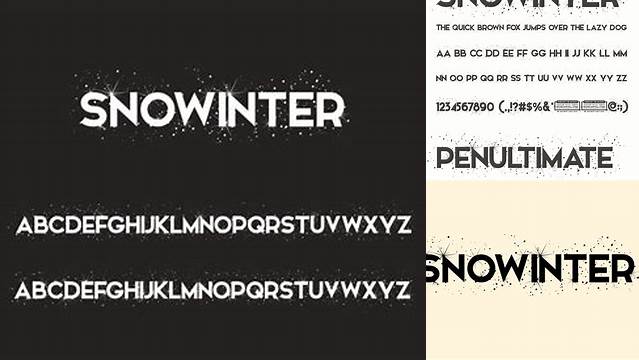
Snowinter Free Font: Personal Use Guide & Ideas
Hey guys! Ever stumbled upon a font that just clicks? That's Snowinter for me. It's this super cool, versatile font that I've been using for all sorts of personal projects. And the best part? It's free for personal use! Let's dive into everything Snowinter and why it might just become your new favorite font.
Snowinter Font: What Makes It Special?
So, what exactly is Snowinter? Well, it's a font family that generally features a modern and clean design. Think sleek lines, balanced curves, and a touch of personality. The specific styles can vary, but usually, you'll find it's easy on the eyes and super readable. Snowinter often comes in different weights (light, regular, bold, etc.), giving you flexibility in your designs. This versatility makes it a great choice for a wide array of personal projects. The charm of the Snowinter font lies in its ability to be both modern and approachable, making it a solid choice for diverse creative endeavors. The clean design and balanced letterforms of Snowinter make it exceptionally readable, which is essential for conveying information clearly and efficiently in various projects.
Why Choose Snowinter for Your Personal Projects?
Okay, so there are a ton of fonts out there. Why pick Snowinter? Simple: it's awesome! First off, being free for personal use is a HUGE win. You can experiment without worrying about licensing fees. Plus, its clean and modern look works well for so many things – from crafting personalized greeting cards to designing your own blog graphics. You'll find Snowinter really elevates the look of your designs without being too overpowering. In choosing Snowinter for your personal projects, you are opting for a typeface that brings a touch of sophistication without the hefty price tag. It’s a valuable asset for hobbyists and creative enthusiasts looking to enhance their work.
Unleashing Your Creativity: Project Ideas with Snowinter
Alright, let's get those creative juices flowing! Snowinter is seriously versatile. Think about using it for designing invitations for your next party, creating eye-catching social media graphics, or even sprucing up your resume. It also looks fantastic on personalized gifts like mugs or t-shirts. The possibilities are endless! Snowinter can also be incorporated into presentations to enhance readability and visual appeal. Snowinter offers a modern and clean aesthetic that can help make your content more engaging and professional-looking. Whether you are working on personal branding, event announcements, or creative crafts, Snowinter can elevate your designs and help you achieve the desired impact. The adaptability of Snowinter means it can be used in various contexts, ensuring your projects stand out with a consistent and stylish typeface.
Snowinter Font Variations: Exploring Different Styles
One of the cool things about Snowinter is that it often comes in different styles or weights. You might find a light version that's perfect for elegant headings, or a bold version that's great for making a statement. Experiment with the different variations to see which ones best suit your project. Sometimes, even subtle changes in font weight can make a big difference in the overall look and feel of your design. Snowinter also offers a range of weights, from light to bold, allowing you to choose the perfect style for your project. Each style maintains the clean and modern aesthetic of the font, ensuring a consistent and professional look across all your designs. Exploring these variations can significantly enhance the visual impact of your work. The availability of different styles in Snowinter allows for creative flexibility, making it an ideal choice for a wide range of design needs. Whether you need a delicate touch or a strong, bold statement, Snowinter has you covered.
Pairing Snowinter with Other Fonts: Achieving Harmonious Designs
Choosing the right font pairing can take your designs to the next level. Snowinter, with its clean aesthetic, plays well with a variety of other fonts. Consider pairing it with a classic serif font for a sophisticated look, or a playful script font for a touch of whimsy. The key is to find fonts that complement each other without clashing. Snowinter also pairs well with minimalist sans-serif fonts for a contemporary feel. By carefully selecting your font pairings, you can create visually appealing designs that are both balanced and engaging. When Snowinter is paired with fonts that complement its design, the result is a cohesive and professional-looking composition. Snowinter offers an incredible tool for creating professional designs.
Snowinter for Branding: Creating a Consistent Visual Identity
Even though it's free for personal use, understanding how Snowinter's aesthetic could contribute to branding is insightful. Its modern, clean lines can help create a consistent and professional visual identity. Imagine using Snowinter across your personal blog, social media profiles, and even business cards. This consistency can help build brand recognition and create a cohesive look. While you can't use it commercially without a license, thinking about its potential in branding exercises your design eye. Snowinter provides a versatile foundation for creating a unified brand image. Snowinter enables you to establish a strong visual identity. While commercial use requires the appropriate licensing, the principles of leveraging Snowinter for branding remain valuable for personal projects. Snowinter is the perfect choice to maintain a professional appearance.
Snowinter vs. Other Free Fonts: A Comparative Analysis
With so many free fonts out there, how does Snowinter stack up? Well, it really depends on your specific needs and preferences. Compared to some more generic free fonts, Snowinter often offers a more polished and professional look. It might not have the quirky personality of some display fonts, but its versatility makes it a great all-around choice. Do some experimenting and see which font best fits your style! Snowinter brings a refined touch that many free alternatives lack. Its balanced letterforms and clean lines make it a reliable choice for various applications. While other free fonts might offer unique or decorative styles, Snowinter stands out for its readability and modern appeal. Snowinter consistently delivers high-quality results. Its versatility and polished appearance make it a valuable addition to any designer's toolkit. Snowinter remains a top contender in the realm of free fonts. Snowinter has proven to be a valuable resource in the community of free fonts.
Conclusion: Snowinter – A Fantastic Font for Personal Use
So there you have it! Snowinter is a fantastic font that's free for personal use and incredibly versatile. Whether you're designing invitations, creating social media graphics, or sprucing up your resume, Snowinter can help you achieve a professional and polished look. Download it, experiment with it, and have fun! Snowinter stands out as a versatile and valuable resource for personal projects. Its clean and modern aesthetic makes it a reliable choice for a wide range of design needs. By leveraging Snowinter, you can elevate your creative endeavors and achieve professional-looking results without the hefty price tag. Snowinter remains a top choice for personal use, offering both style and functionality.